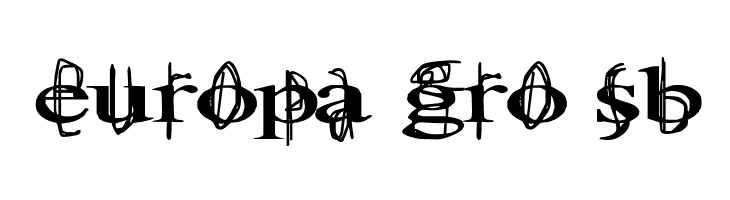
A modern, geometric font with a futuristic and artistic style.
A bold, rugged font with jagged edges and a distressed appearance, ideal for impactful designs.
A bold, distressed font with a grunge effect, perfect for dynamic and edgy designs.
A bold, distressed font with a dynamic, grunge-like appearance.
A chaotic, decorative font with sharp, jagged edges and overlapping strokes.
A bold, textured font with a distressed, wave-like appearance.
A bold, dynamic font with angular, playful characters.
A bold, distressed font with jagged edges and a rugged texture.
A playful, bold font with irregular, hand-drawn shapes.
A bold, jagged font with a hand-drawn, chaotic style.